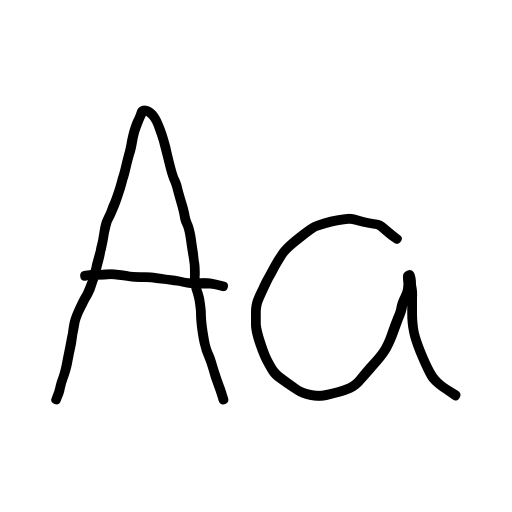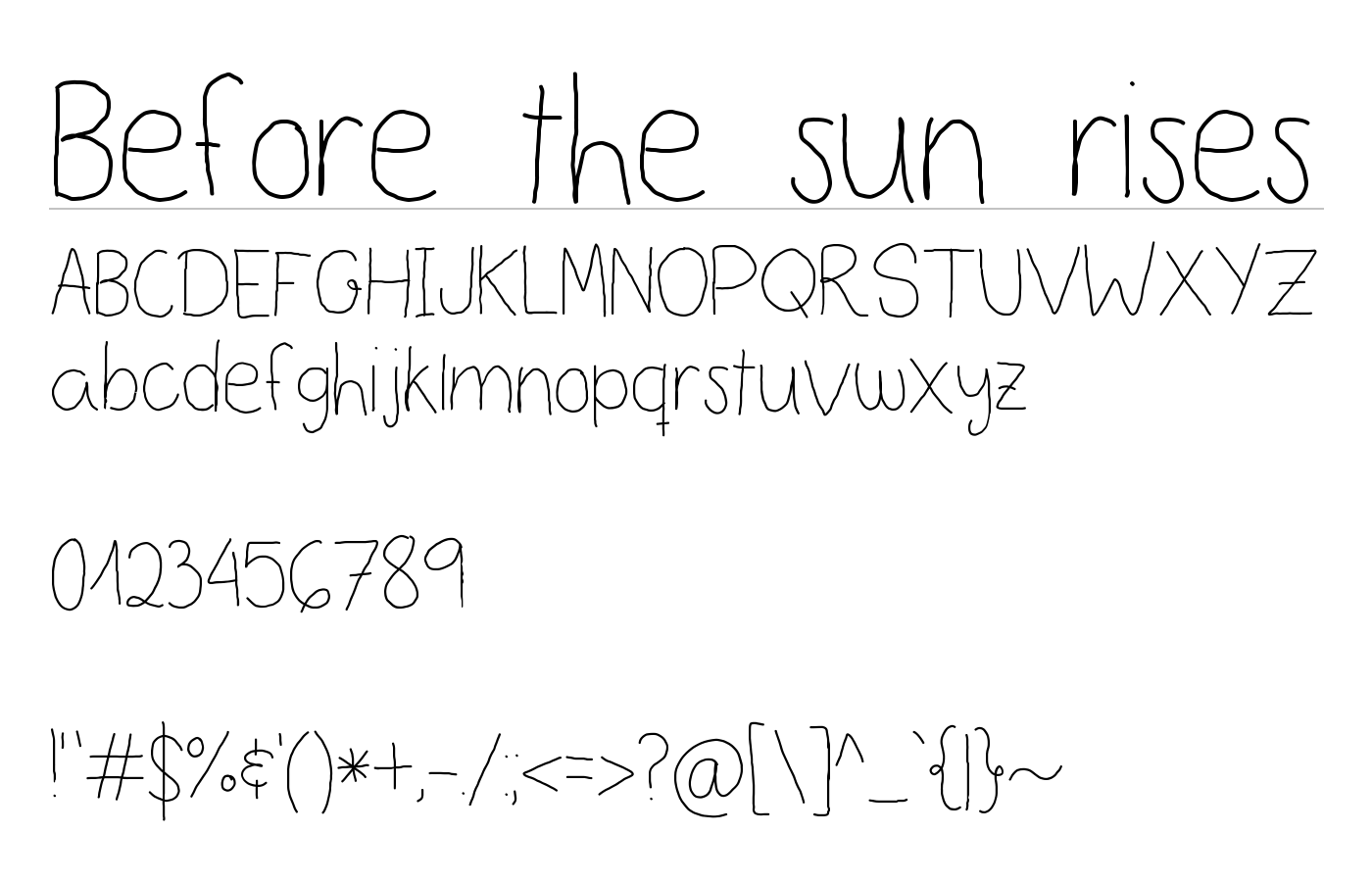
Before the Sun Rises is a delicate, hand-drawn sans serif font that features an airy and whimsical style with thin, uneven strokes, giving it a personal and charming touch. Its tall, narrow letterforms and casual, imperfect lines make it perfect for creative projects that want to convey warmth and friendliness, such as invitations, children’s books, or informal branding. This font works best in headlines or short texts where its unique, handcrafted character can truly shine.
Before the sun rises Font
About Before the sun rises Font